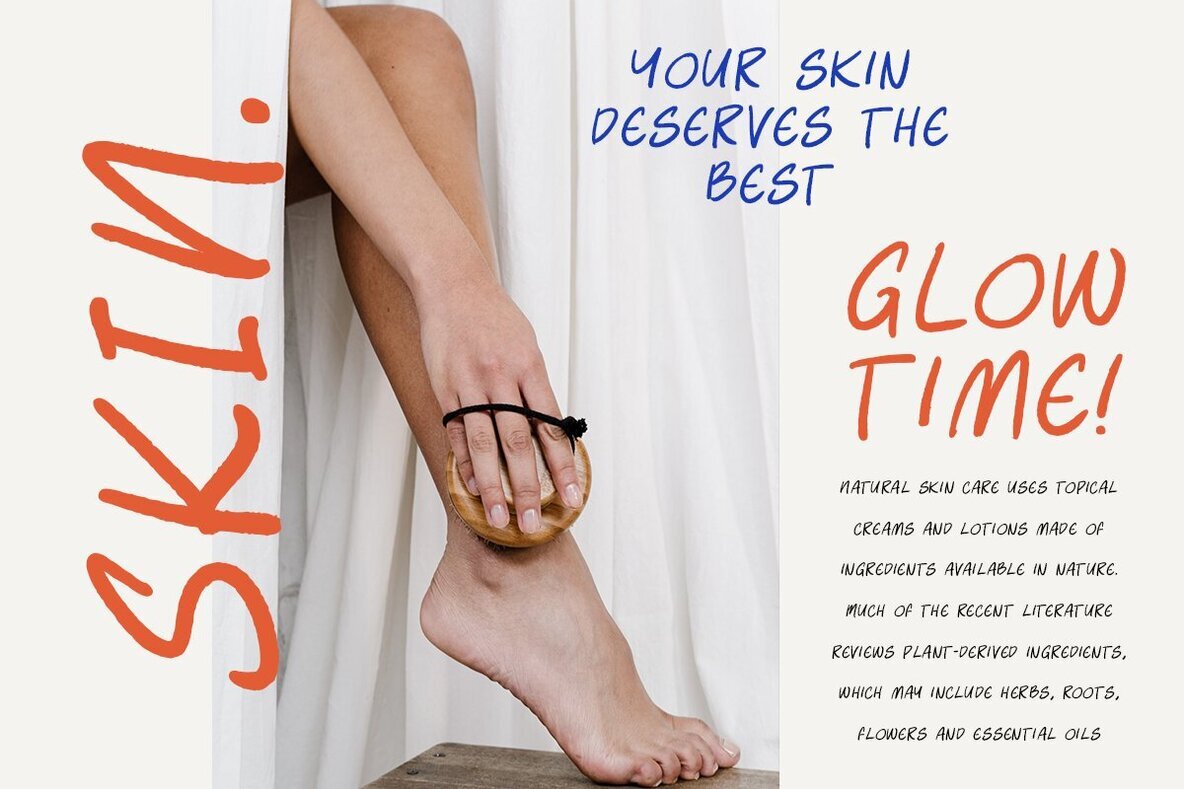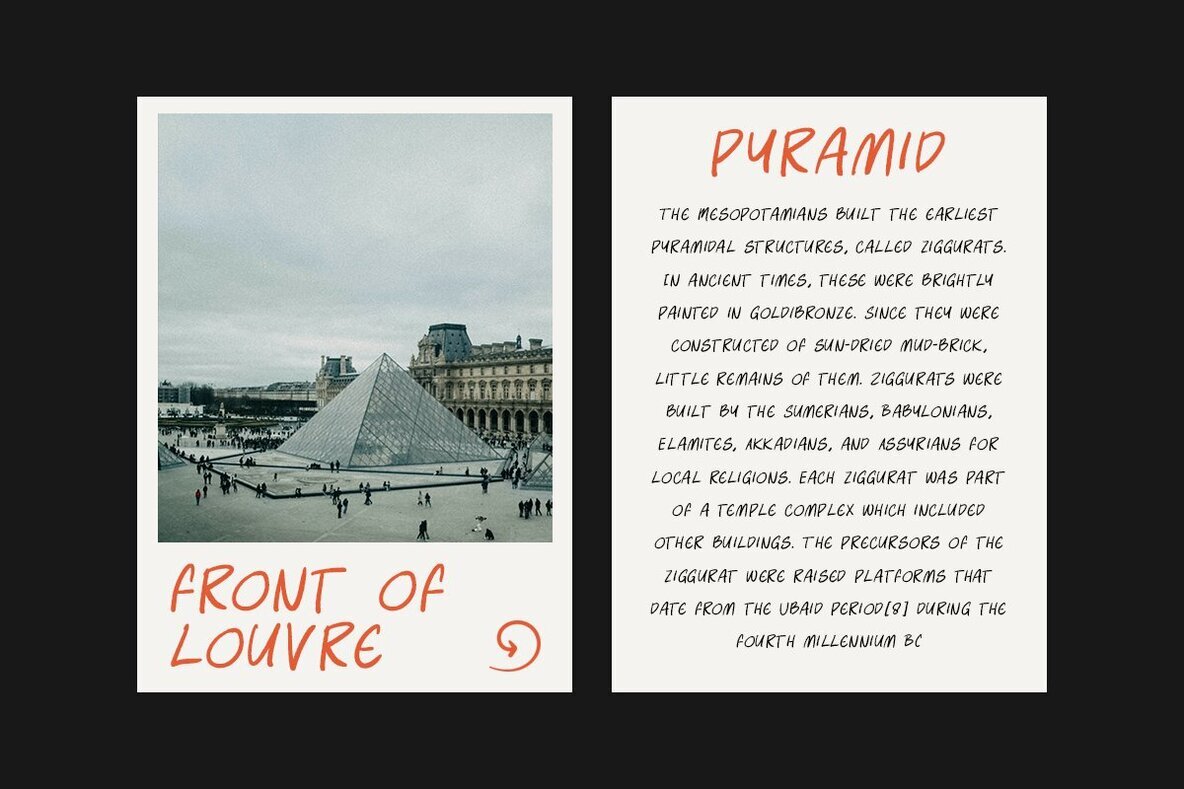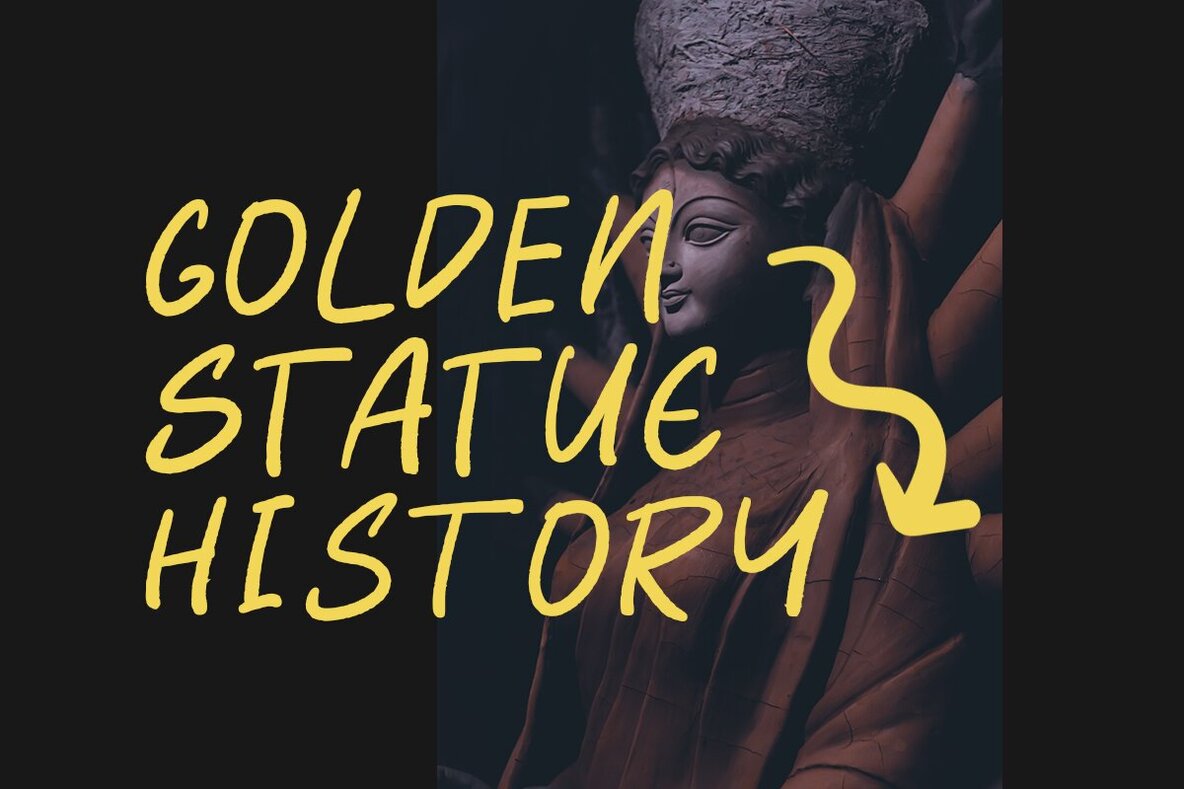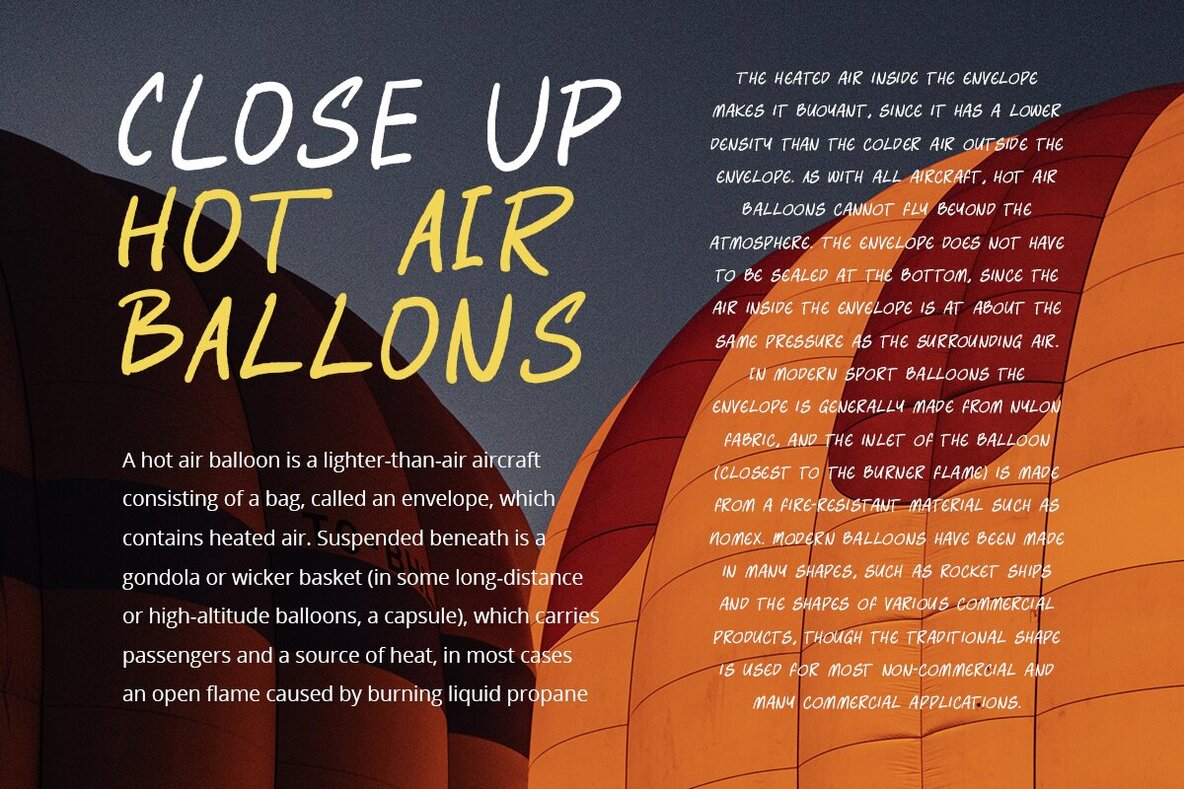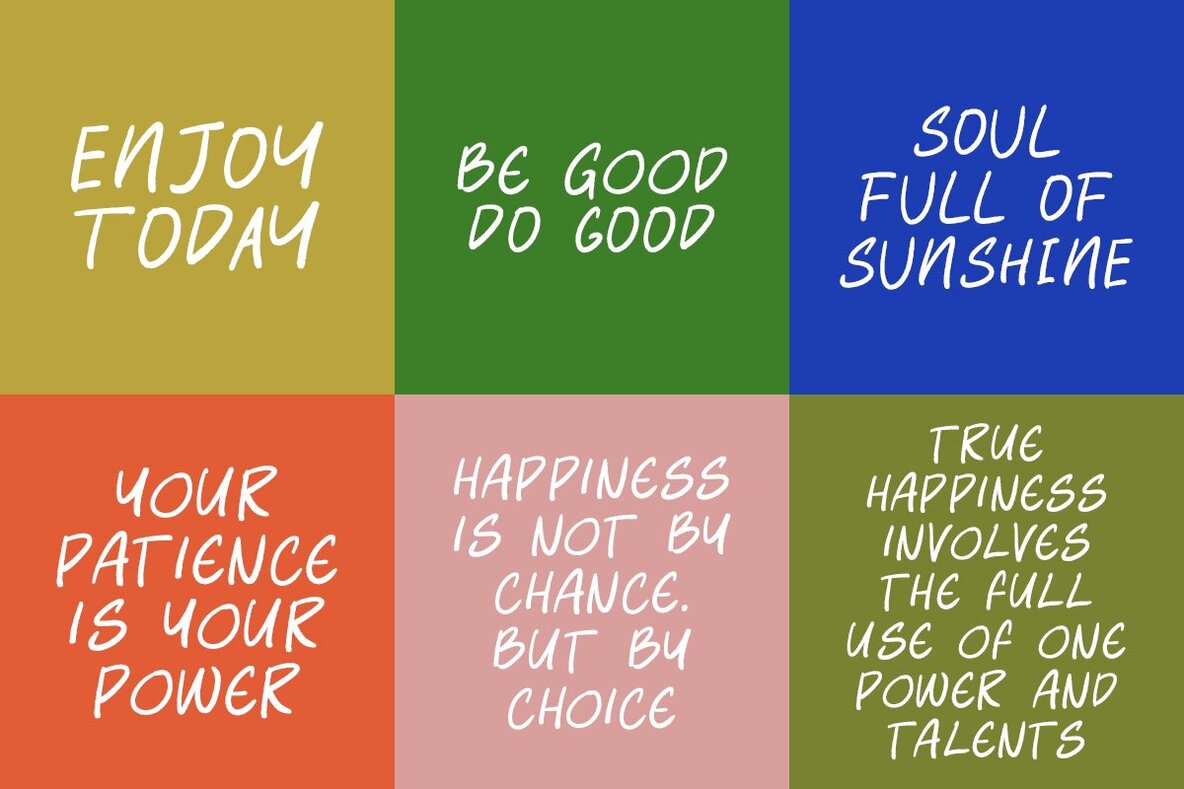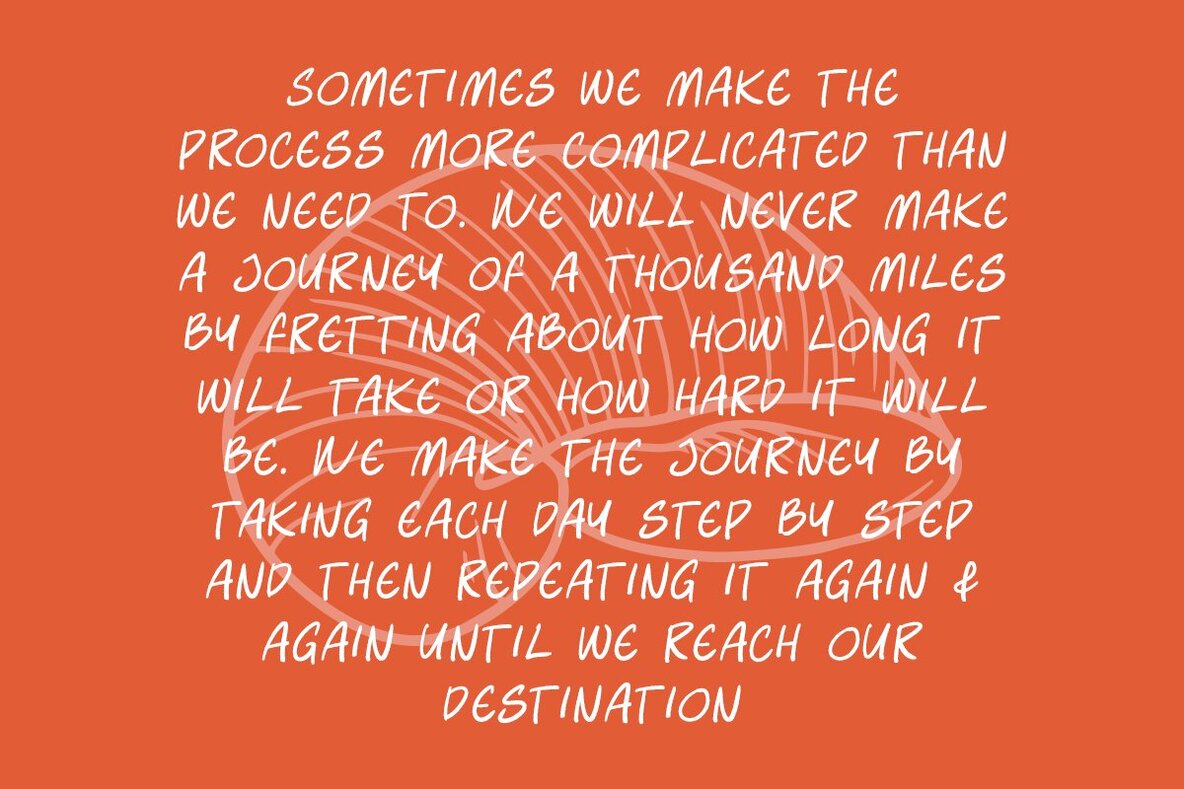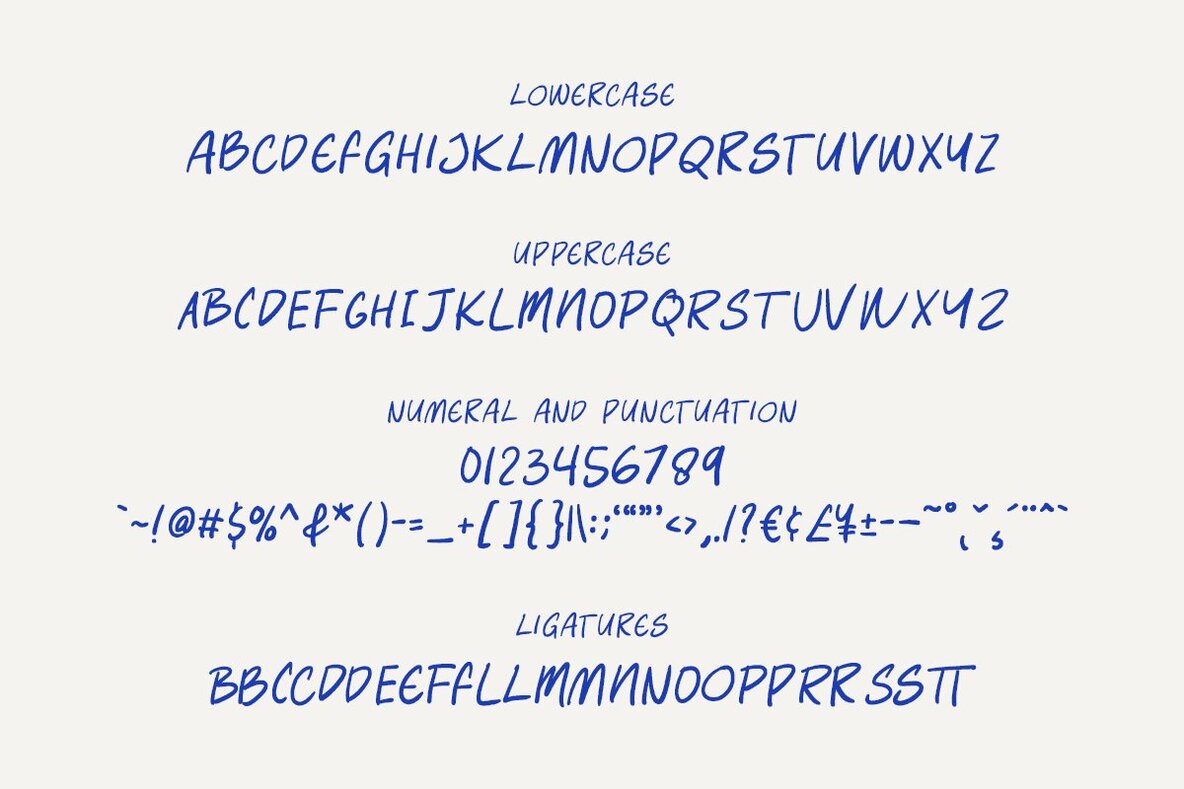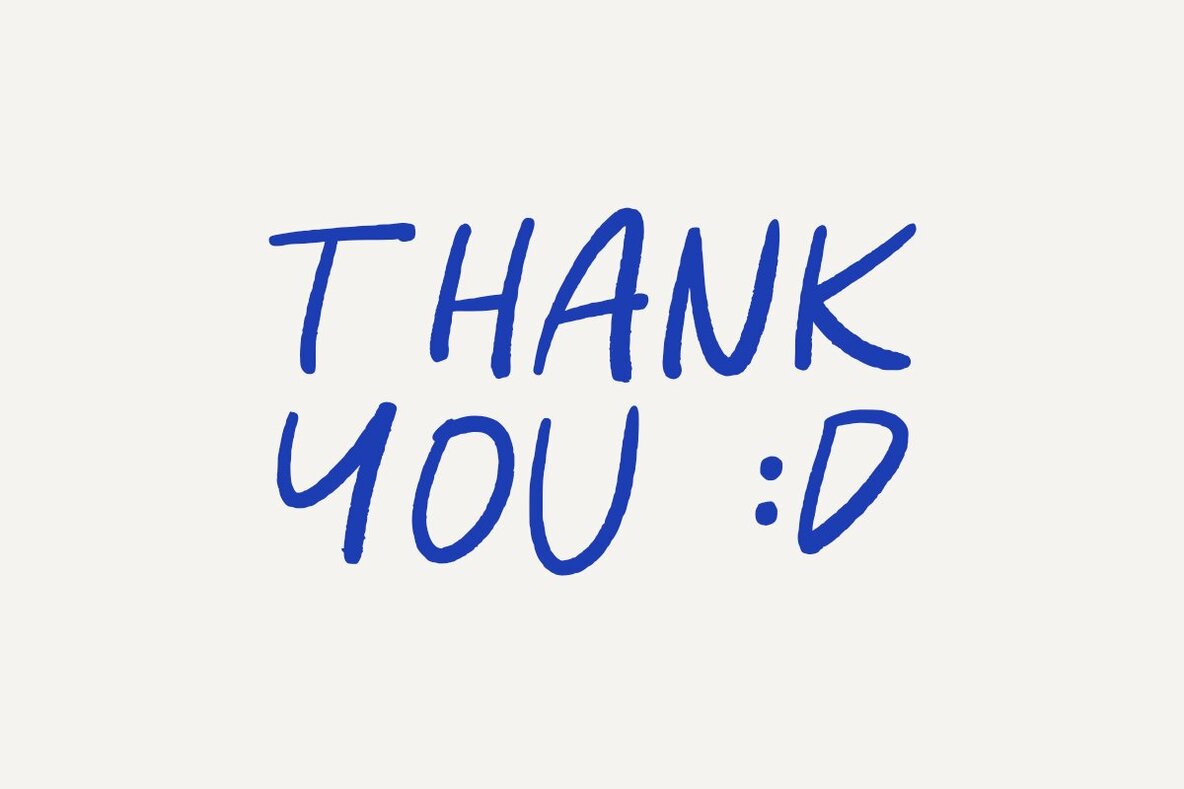
Enjoy Notes Font
Introducing Enjoy Notes, a typeface designed to emulate the look of natural, handwritten notes. Perfect for those seeking an informal and relaxed aesthetic, Enjoy Notes blends a casual style with practical usability.Enjoy Notes: A Casual Handwritten Font
Characteristics